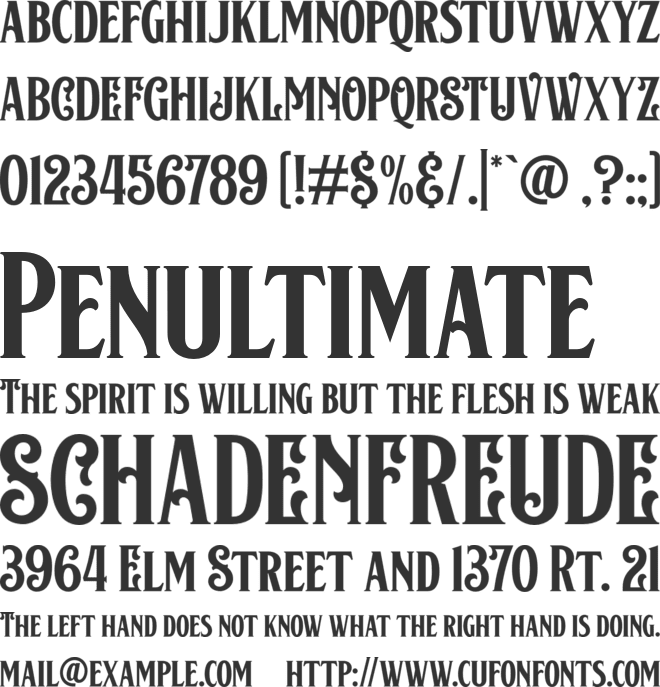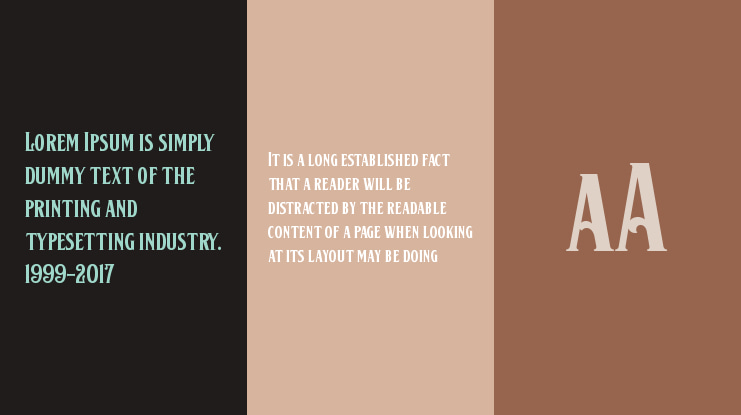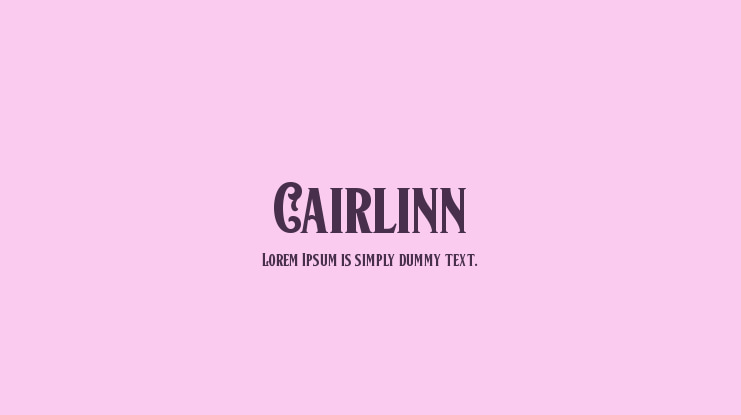
Cairlinn Font
Let us introduce our first font on 2019; Cairlinn. A clean serif that are forged with spirit of vintage typography. Heavily inspired by the old letters that are used in classic advertisements. ----- PS: This font is a demo version, which only contain standard characters (upper, lowercase, numerals and standard punctuations). Purchase the full/commercial version to get the slanted/italic version, multilingual characters, lots of OpenType characters, etc here: https://crmrkt.com/oeg9dX ----- THANKS AND ENJOY!